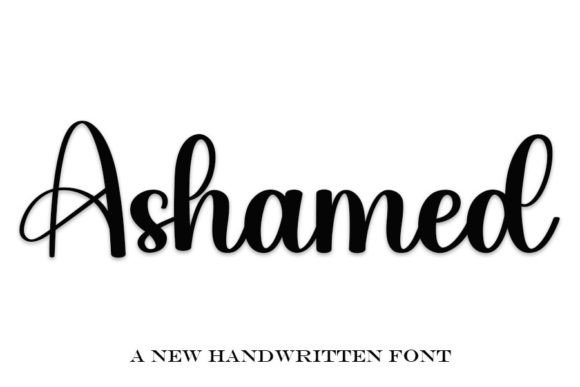
The Ashamed Font: A Timeless, Elegant Touch for Your Designs
Have you ever been in the middle of a design project, and suddenly, you’re stuck on finding the perfect font? I recall a recent experience where I was working on a client’s wedding invitation, and I just couldn’t seem to find a font that captured the elegance and sophistication they desired. That’s when I stumbled upon the Ashamed font, and let me tell you, it was love at first sight! ✨
As a designer, I’m always on the lookout for fonts that can elevate my projects. Here’s what I love about Ashamed:
- ✨ Elegant and refined: Ashamed boasts an incredibly distinct and timeless style that adds a touch of sophistication to any design.
- ✅ Versatile: This font is perfect for a wide range of projects, from wedding invitations and branding materials to digital content and more.
- 💫 Handwritten charm: The Ashamed font has a beautiful, handwritten quality that gives it a personal and relatable feel.
Now, I’m not saying it’s perfect. There are a few quirks to consider:
- 🤔 Limited use in small sizes: Ashamed is best used in larger sizes (18pt and above) to truly appreciate its elegant details. Using it in smaller sizes might make it look a bit blurry or lost.
- ⚠️ Not ideal for body text: Due to its elegant, cursive nature, Ashamed might not be the best choice for lengthy body text. It’s better suited for headings, titles, or short paragraphs.
- Experiment with OpenType features like ligatures and stylistic alternates to add more flair to your design.
The Story Behind Ashamed: Designer Inspiration
While the true story behind Ashamed remains a mystery, it’s easy to imagine that the designer was inspired by classic calligraphy and elegant handwriting. Perhaps they wanted to create a font that would evoke a sense of sophistication and refinement, perfect for special occasions and high-end designs. Whatever the inspiration, Ashamed has undoubtedly become a beloved font among designers and crafters.
| What makes Ashamed a great choice for designs? | Ashamed’s elegant, refined, and timeless style makes it perfect for a wide range of projects, from formal events to digital content. |
| Is Ashamed suitable for body text? | No, Ashamed is best used for headings, titles, or short paragraphs due to its elegant, cursive nature. |